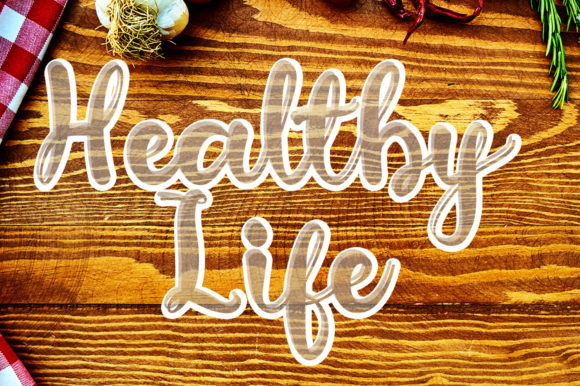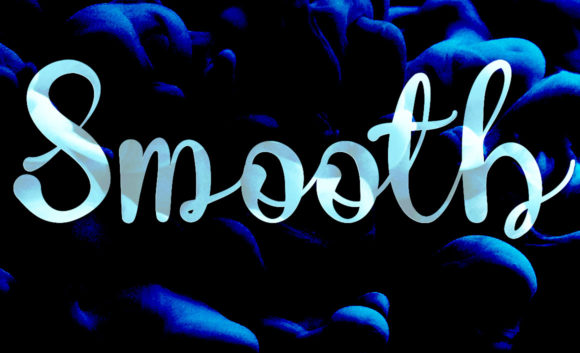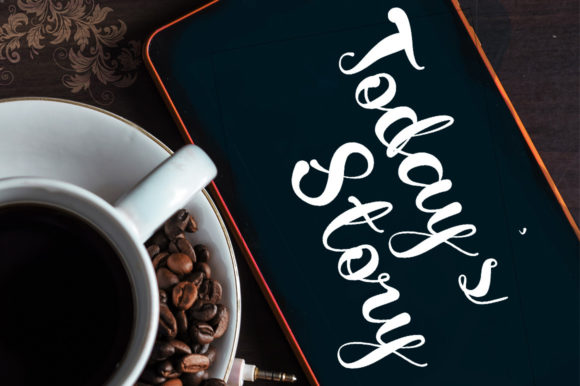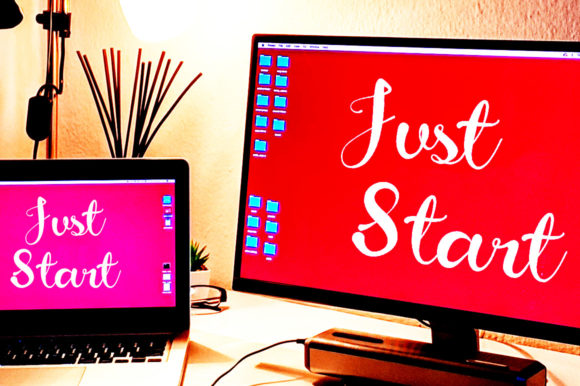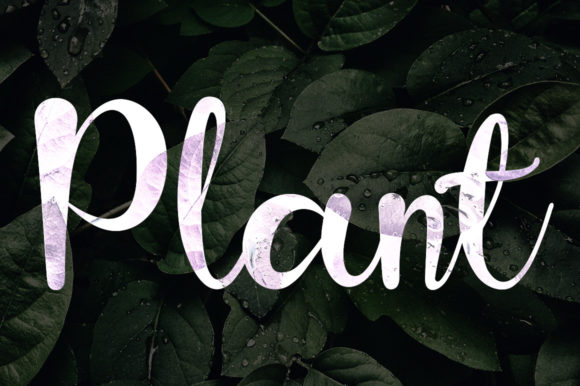
Garlic Font
About Garlic Font
Garlic is a playful and modern script font. It is perfectly suited for traditional media and web. Garlic’s playfulness make it great for creative projects, be it inspirational wall posters or for communicating your brand.